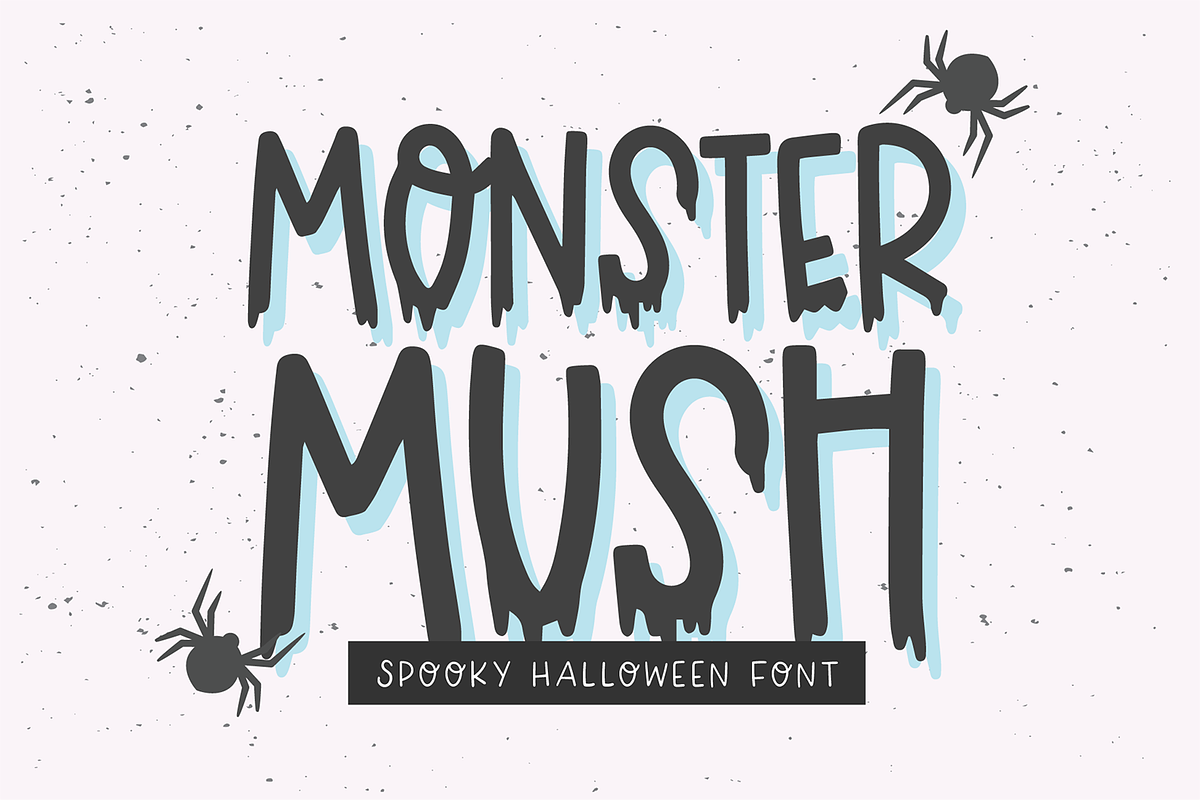
MONSTER MUSH Halloween Font Free Download
MONSTER MUSH Halloween Font Free Download is the ultimate choice for designers looking to inject fun, quirky, and spooky energy into their Halloween projects. This playful typeface features bouncy, cartoon-style lettering that captures the excitement of trick-or-treat season. Whether you're working on party invitations, YouTube thumbnails, posters, or kids' Halloween crafts, this font delivers charm with a spooky twist.
Add MONSTER MUSH Halloween Font Free Download to your font library today and bring your seasonal designs to life with a dash of monstrous fun. Its playful vibe makes it especially great for family-friendly content or anything aimed at younger audiences. Don’t miss the chance to give your Halloween graphics a fresh and lively look!